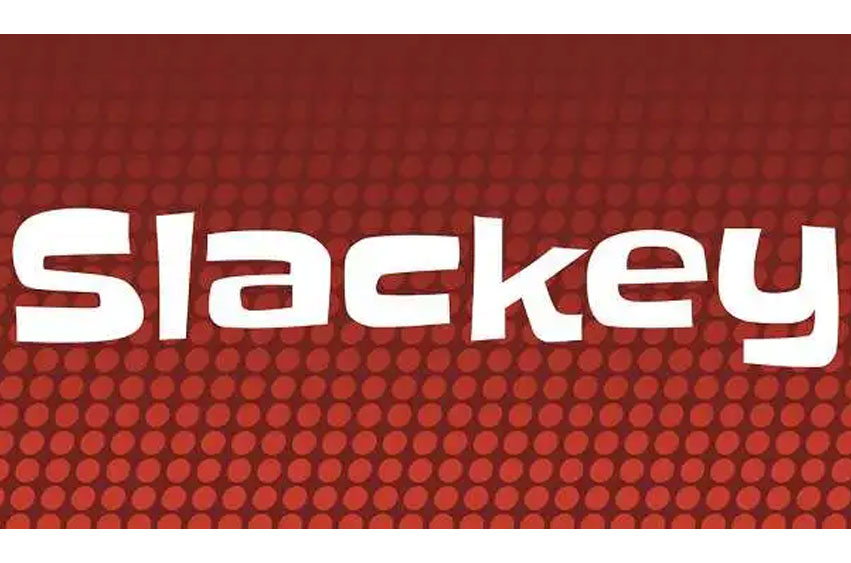
Slackey Font
Slackey Font To the naked eye, Slackey may appear to be a lazy application but making the mistake of judging Slackey by its cover is a big NO! NO! NO! Slackey is indeed a working application especially when it comes to large font displays.
If you have any headlining tasks which might be quite challenging, you should consider giving Slackey all of them because it will do all the work for you. Slackey was created with effort put in by Squid.